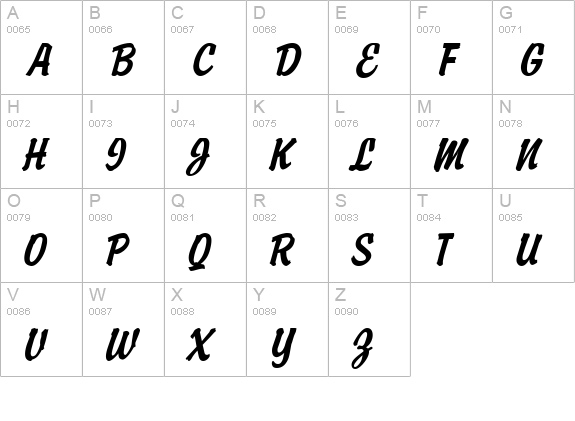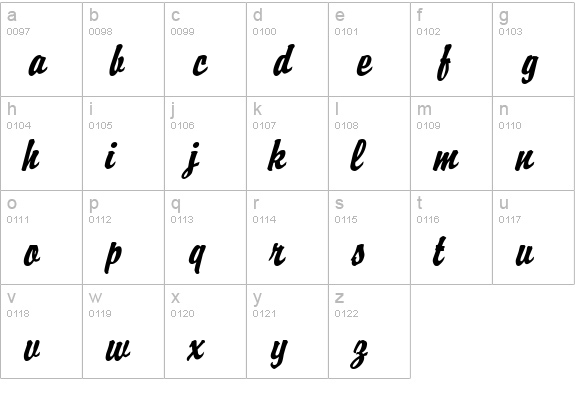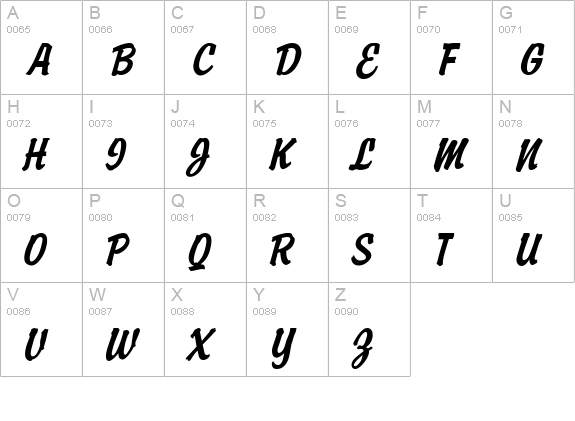
Brisk Extended Italic is a distinctive, extended-width, italic variant in the Brisk typeface family \xE2\x80\x94 well suited to design and typography projects.
Introducing Brisk Extended Italic font - a sleek and modern typeface that exudes sophistication and elegance. Its italicized design adds a touch of flair and style to any project, making it perfect for a wide range of creative applications. With its extended character set, this font is versatile and can be used for headlines, branding, and more. What's even better is that Brisk Extended Italic font is available for free download at FontsMarket.com. Now you can elevate your designs with this beautiful typeface without breaking the bank. Don't miss out on the opportunity to enhance your projects with this stunning font - download Brisk Extended Italic today!